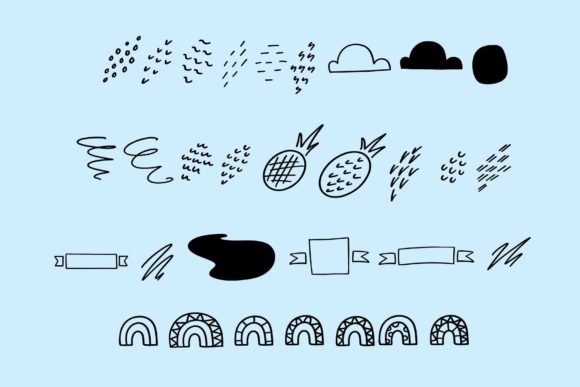
The Ultimate Guide to Abstract Dingbats Font: Unlocking Creative Possibilities
I’ll never forget the time I was working on a project for a client who needed a unique and quirky font to match their brand’s playful personality. As I scrolled through my font library, I stumbled upon Abstract Dingbats, and it was love at first sight! ✨ This cool and useful dingbats font has since become a staple in my design toolkit, and I’m excited to share its awesomeness with you.
An Honest Review of Abstract Dingbats
• ✨ Unique and abstract designs that add a touch of personality to any project
• ✅ Highly versatile and suitable for various design applications, including crafting, digital designing, presentations, and greeting cards
• 🌈 A wide range of glyphs and stylistic alternates to experiment with
While Abstract Dingbats is an amazing font, there are a few minor quirks to be aware of:
• 🤔 Some glyphs may require manual kerning for optimal spacing
• ⚠️ Limited language support, so it’s best suited for English or language-agnostic designs
The Designer Inspiration Behind Abstract Dingbats
According to the font’s creators, Abstract Dingbats was inspired by the abstract expressionist art movement. The font’s unique designs are meant to evoke a sense of playfulness and creativity, making it perfect for designers and crafters looking to add a touch of personality to their work.
What type of projects is Abstract Dingbats best suited for? Abstract Dingbats is perfect for crafting, digital designing, presentations, greeting cards, and any other project that requires a unique and playful touch.
Is Abstract Dingbats available in multiple languages? No, Abstract Dingbats has limited language support. It’s best suited for English or language-agnostic designs.